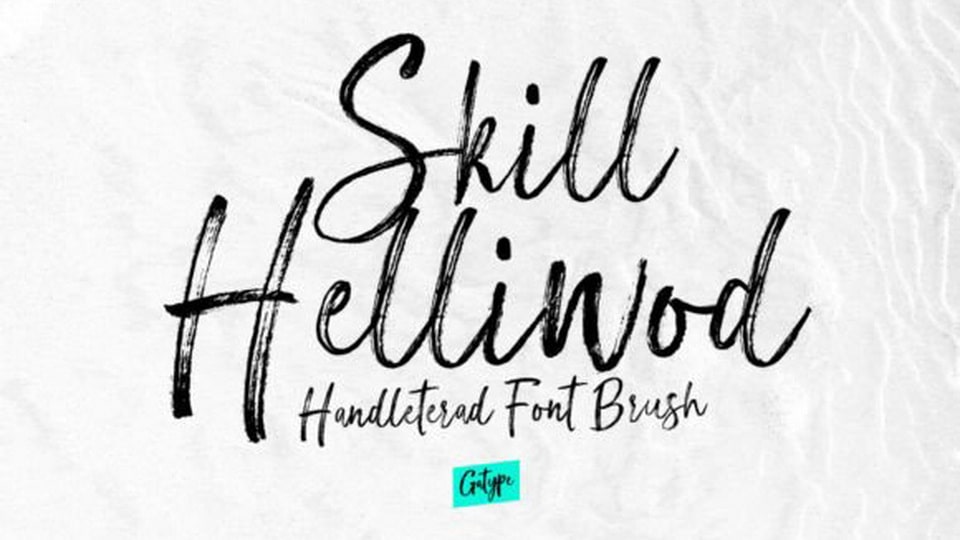
Download Skill Helliwod font, an energetic and dynamic handwritten brush typeface. It is the best choice for creating eye catching logos, branding and quotes.